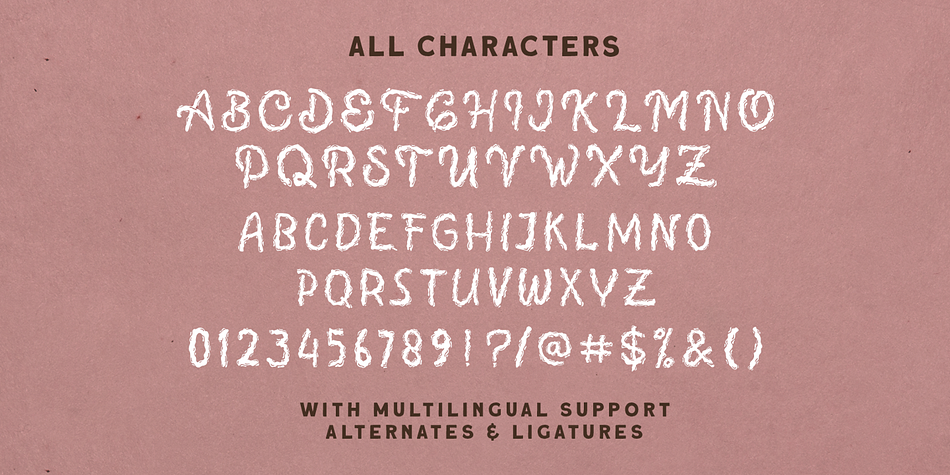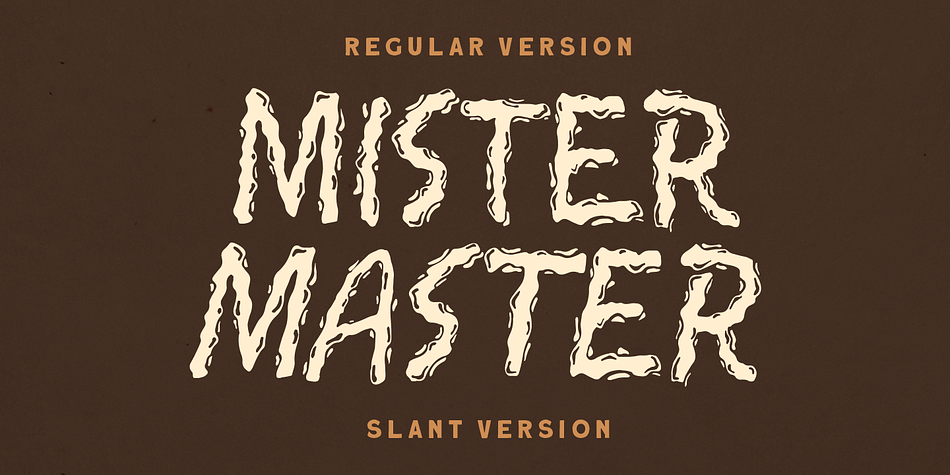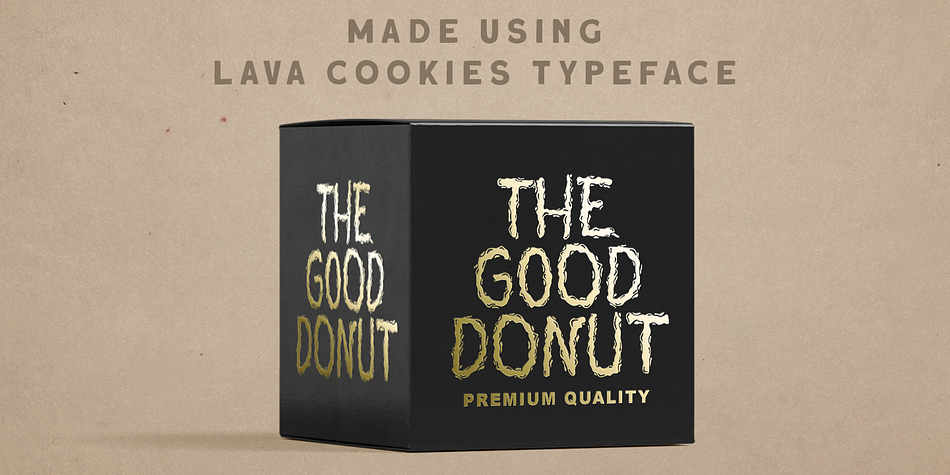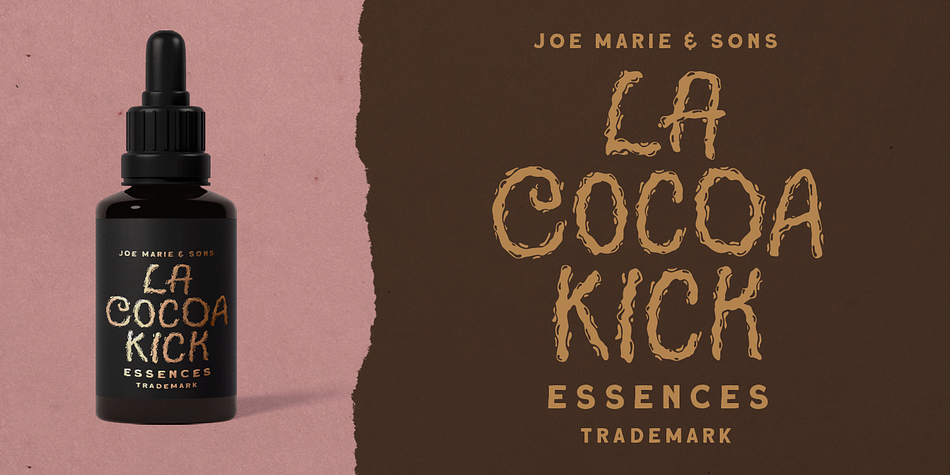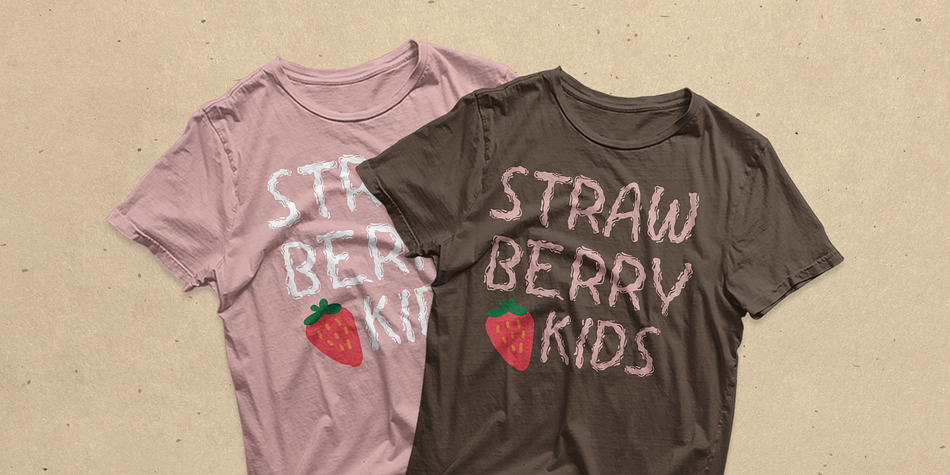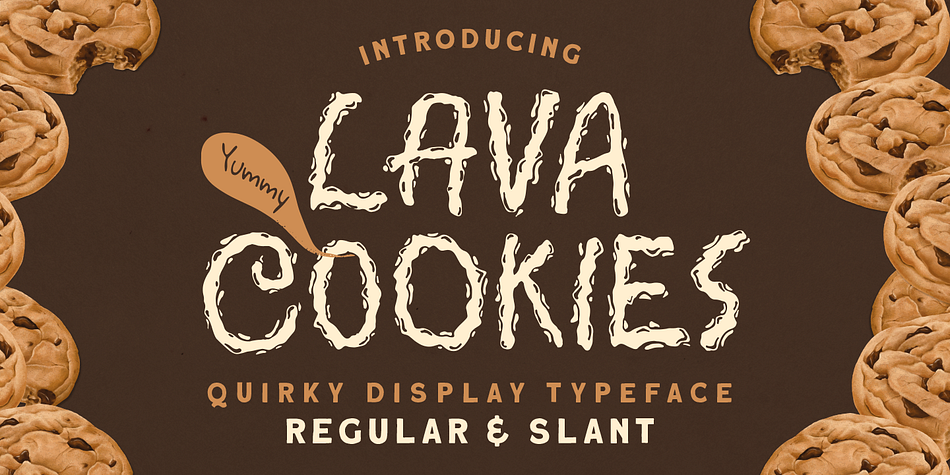
Designed by Hendry Juanda, Lava Cookies is a hand display font family. This typeface has two styles and was published by Letterhend Studio.
Introducing, Lava Cookies - A quirky display typeface. The unusual quirky style make this font looks great and standout for tittle, branding, logo, packaging, etc.
- alternates & ligatures